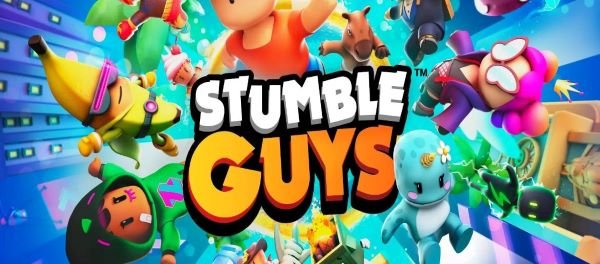
Stumble Guys Font is based on a custom game logo typeface whose chunky, rounded letterforms perfectly capture the chaotic party-battle spirit of Kitka Games’ wildly popular mobile title. The bold shapes and soft curves feel instantly playful and competitive in equal measure.
Style: Rounded, Cartoon, Bold, Playful